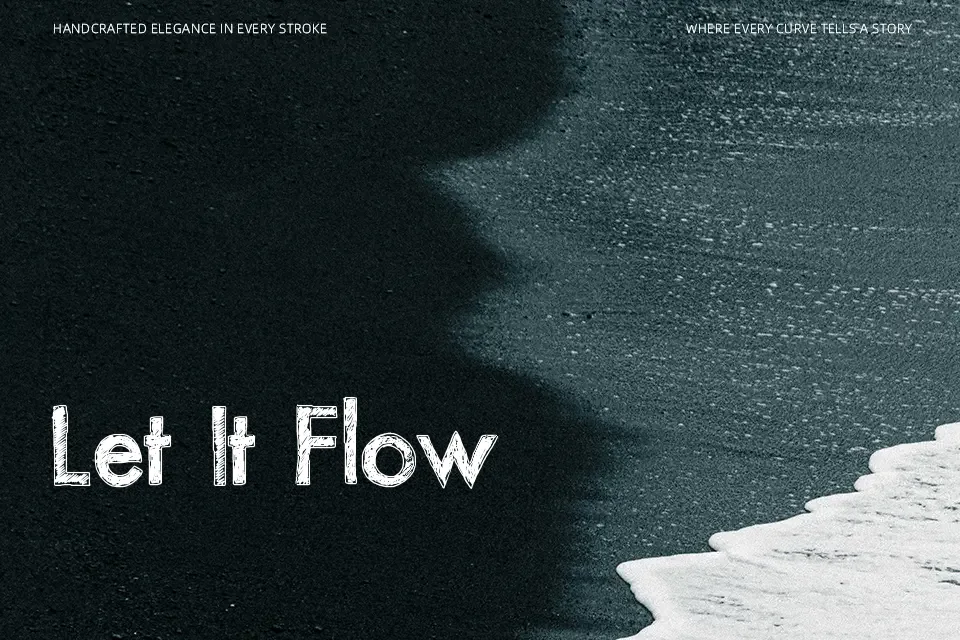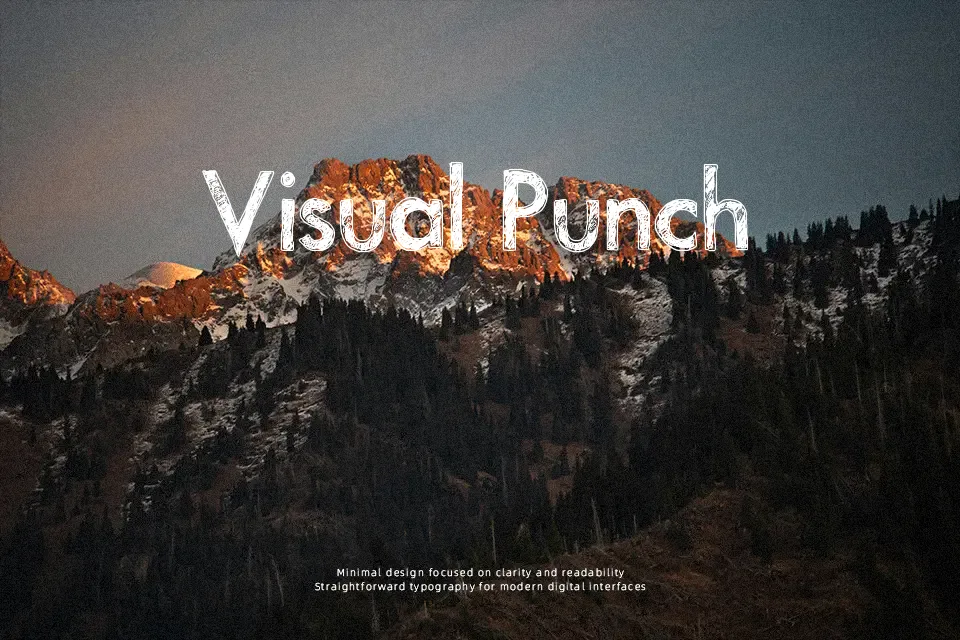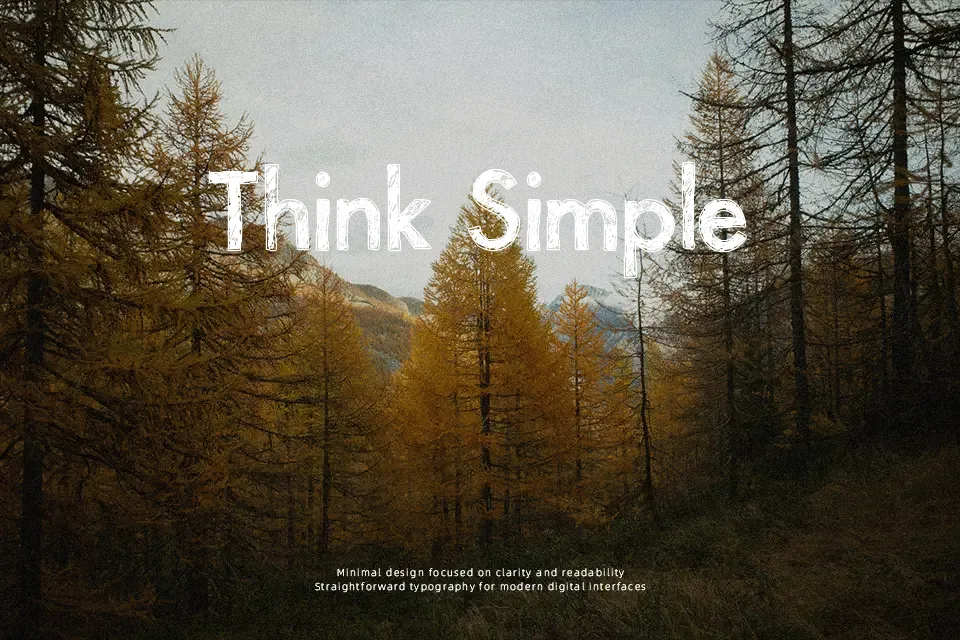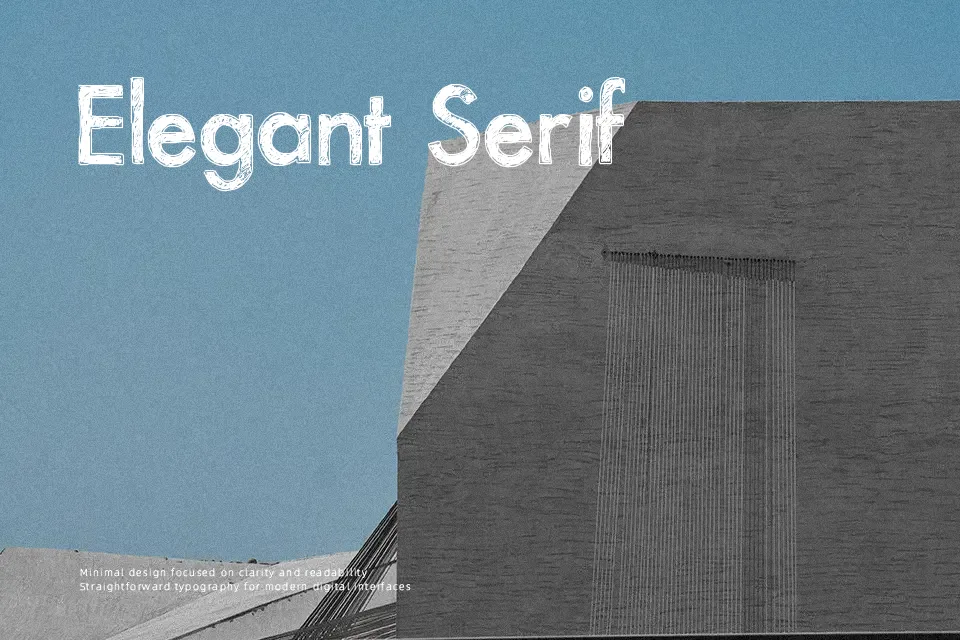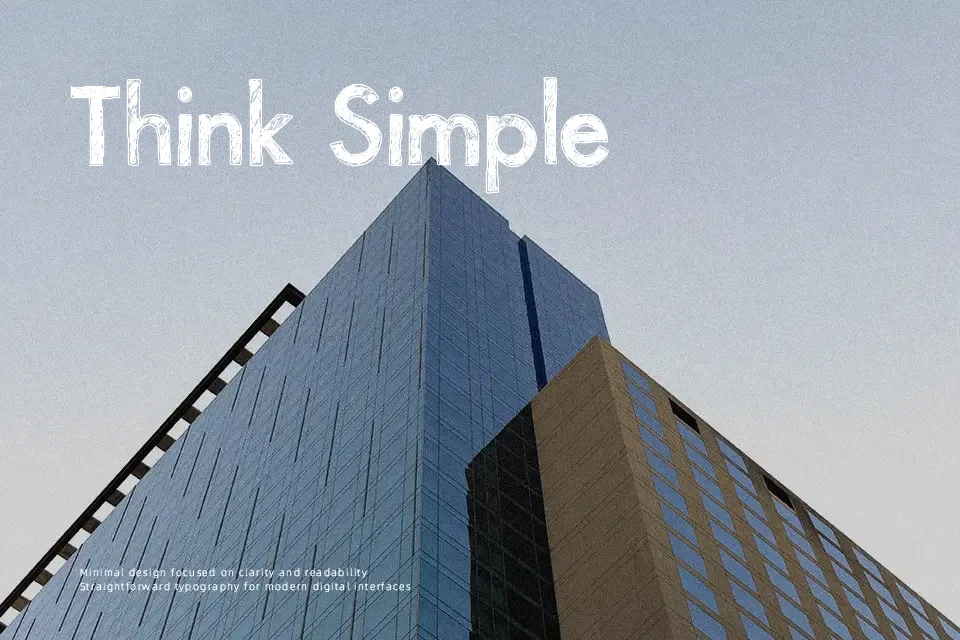
Sketchy Font
Sketchy Font showcases an organic, hand-drawn appearance defined by uneven outer contours and internal hatching strokes. Each character maintains consistent width proportions, while balanced spacing prevents the dense textured outlines from bleeding together in short phrases. These expressive letterforms communicate strong artistic energy, making the design particularly effective for comic book covers, streetwear merchandise, music packaging, and bold headline banners. However, the intricate sketch details diminish clarity when rendered at small text scales, making continuous paragraph reading impractical. The dense cross-hatched stroke texture creates an authentic illustration aesthetic that performs best in large display settings.
Best For: comic book covers, streetwear apparel, music event posters, bold display titles
Not Ideal For: long paragraph reading, mobile interface body text, dense editorial layouts, technical documentation
Perfect for branding, headline, and packaging, with a artistic and decorative style.